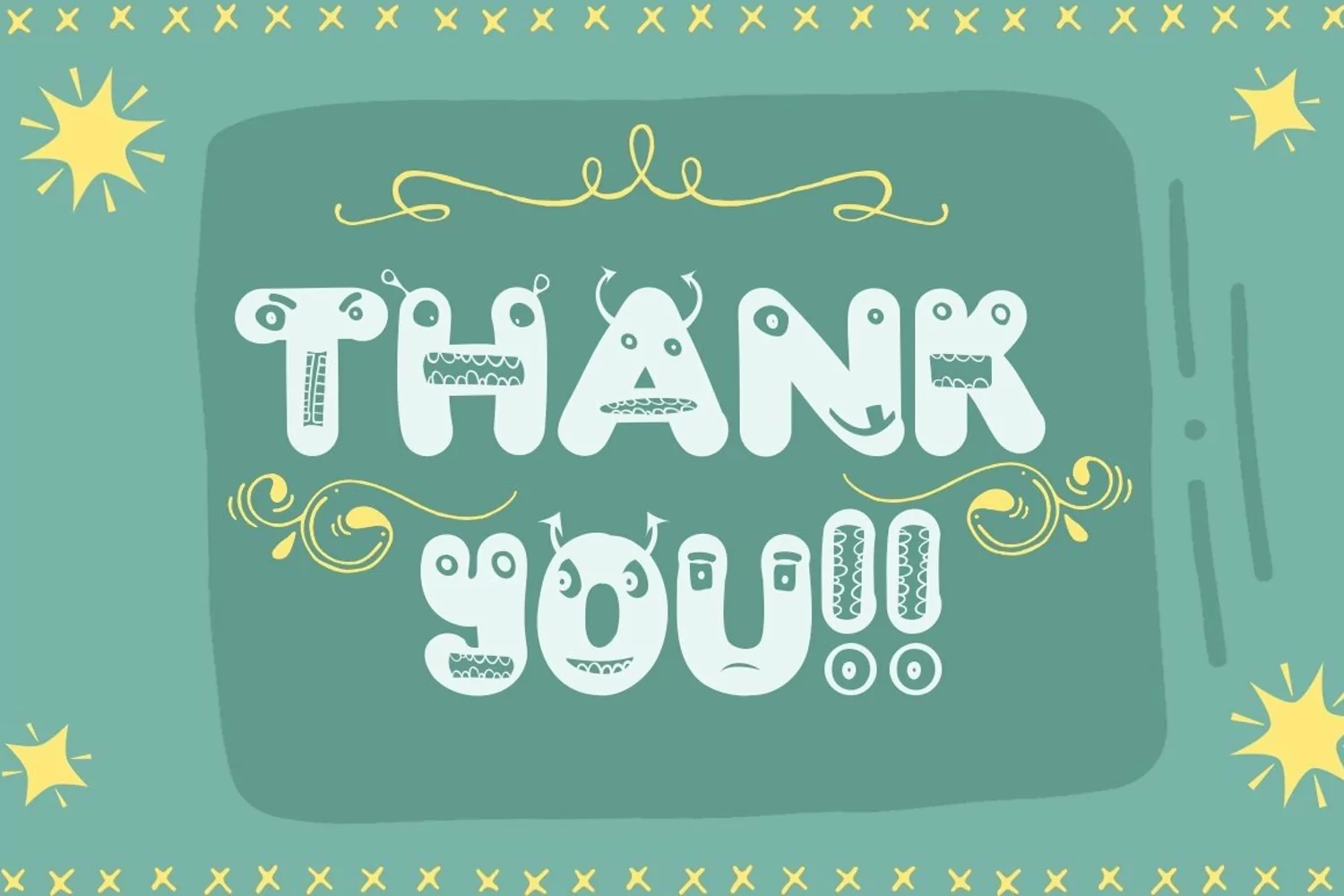
Web Font Cute Monsters A Spookily Cute Halloween Font
Presenting Cute Monsters! A playful font ideal for crafters
and not only. Is a massive font created for headers, t-shirts & other
designs where you need a big font.
Optimized for crafters with Cricut and Silhouette Studio!
The number of points in each letter is reduced to a minimum and the cutting
will take much less time compared to regular fonts.